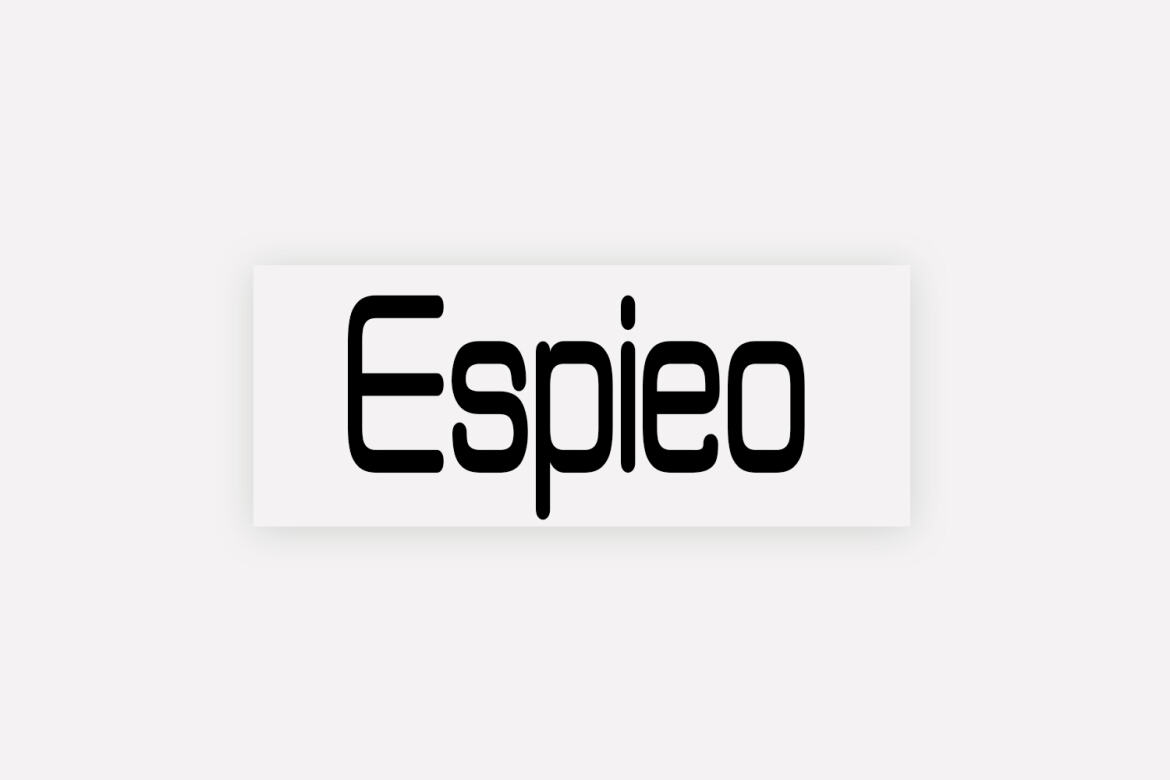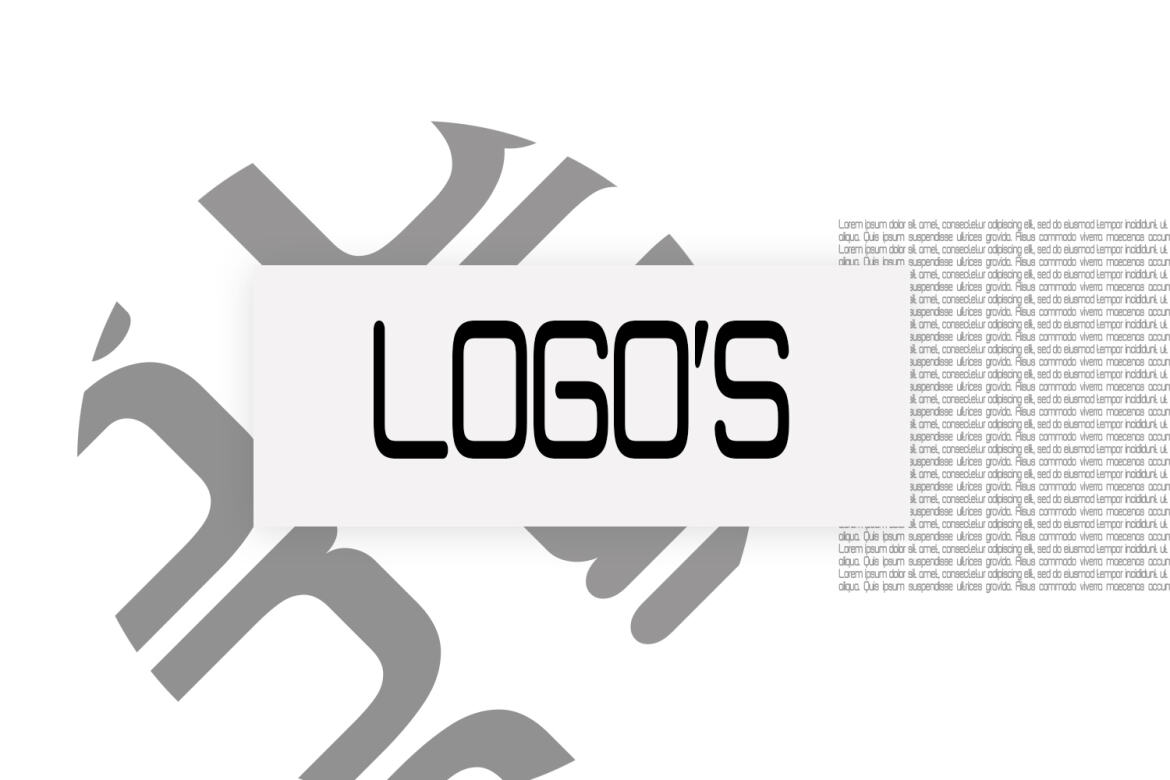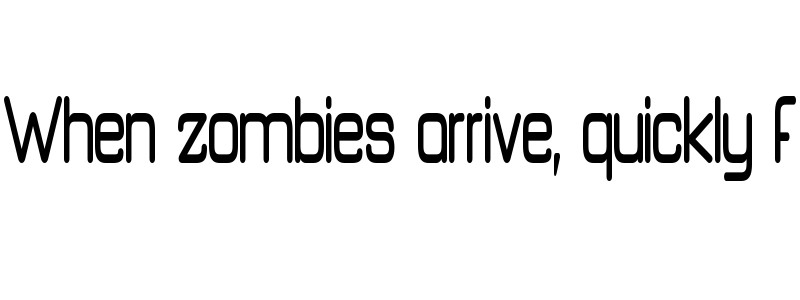
Espieo - Free Font
Espieo is a minimal display font that would look marvellous on a variety of different projects. Combine it with your creative ideas and watch your projects come to life!.If you want to communicate effectively, this font is ideal for a variety of projects like social media posters, advertisements, printed photos, t-shirt designs, fashion, luxury, packaging, branding, and more. Please see the examples shown above to get an idea about the capability of this typeface.
• espieo font minimal display font.
• this font is ideal for a variety of projects like social media posters, advertisements, printed photos, t-shirt designs, fashion, luxury, packaging, branding,